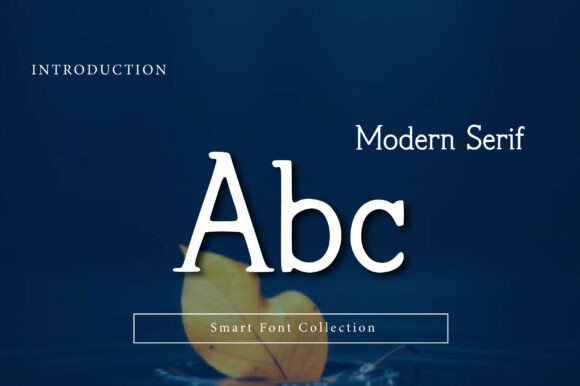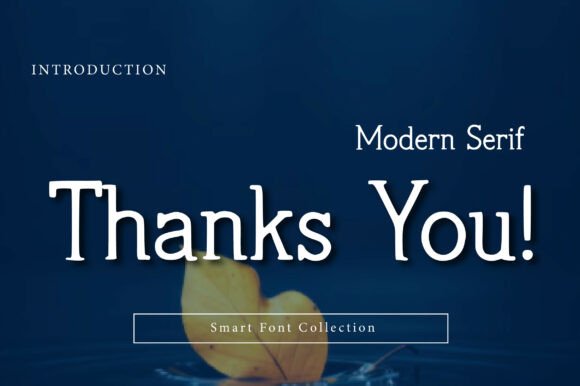
Introduction to Modern Serif Font
You’ve spent hours perfecting the design of your latest creative project, pouring over every detail to ensure it’s just right. The perfect color palette, the ideal typography, the flawless layout – it’s all coming together beautifully. But then, you hit a snag. Your chosen font just doesn’t quite have the high-quality, elegant look you’re going for. That’s where the Modern Serif Font comes in – a stylish and contemporary serif typeface that’s designed to bring sophistication and clarity to your design.
With its clean strokes, balanced contrast, and refined details, the Modern Serif Font is the perfect solution for designers seeking a clean, confident, and sophisticated typeface. Whether you’re working on a branding project, creating editorial layouts, or designing luxury packaging, this versatile font is sure to deliver. And with its modern character paired with timeless serif elements, it’s the perfect choice for designers who want to make a statement with their design.
Key Features of Modern Serif Font
- High-quality typography with precise strokes and letterforms, making it perfect for creative projects that require a touch of elegance.
- Designed to be highly legible, even at small font sizes, making it ideal for body text, headings, and titles in various creative projects.
- Features a clean and modern aesthetic, with subtle nuances that give it a unique character and make it stand out from more traditional serif fonts.
Honest Review: Modern Serif Font
I’ve been experimenting with different fonts for my creative projects, and I recently stumbled upon the Modern Serif Font. It’s a great addition to any designer’s toolkit, offering a high-quality, sleek aesthetic.
- ✨ Beautifully crafted letterforms with clean lines and a professional feel
- ✨ Supports a wide range of languages, making it a versatile design resource
However, I do have a few reservations:
- ⚠️ Limited customization options, which might not be ideal for designers who like to get creative
- ⚠️ Not ideal for use on transparent backgrounds, as the font can appear slightly fuzzy
Overall, I’m impressed with the Modern Serif Font. It’s a solid choice for designers looking for a high-quality serif font that’s easy to use and customize. While it may not be perfect, it’s definitely worth checking out for your next creative project.
Use the Modern Serif Font for headings and titles in your creative project to add a touch of elegance. You can also use it for body text to create a consistent look throughout your design. Remember to use it with a high-quality image or background to get the most out of it.